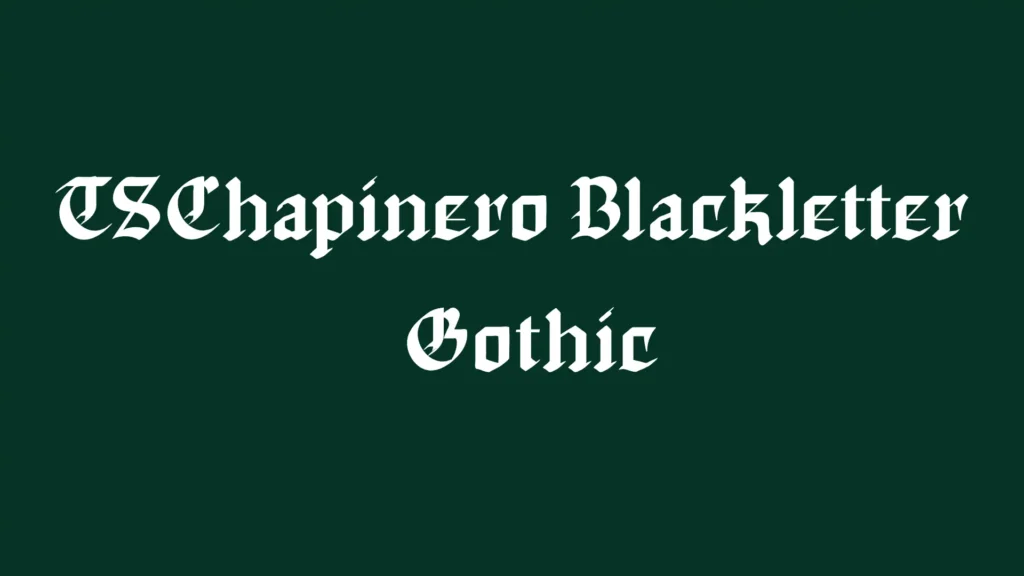
TSChapinero Blackletter Font
TS Chapinero Blackletter is a bold, modern Gothic blackletter display font designed by independent foundry Type Sailor and released in May 2019. It beautifully reimagines traditional Old English calligraphic structures into a clean, geometric silhouette optimized for modern digital artwork.
TSChapinero Blackletter Font Preview
TSChapinero Blackletter is a gothic font that works well for tattoos, metal band logos and dark fantasy titles. It was designed by Type Sailor.
Every letter from A to Z is here in both cases, and so are the digits 0–9. Punctuation such as &, !, ? and @ works too. Its accented letters cover Spanish, French, German, Portuguese and Italian, so you can use it for more than just English.